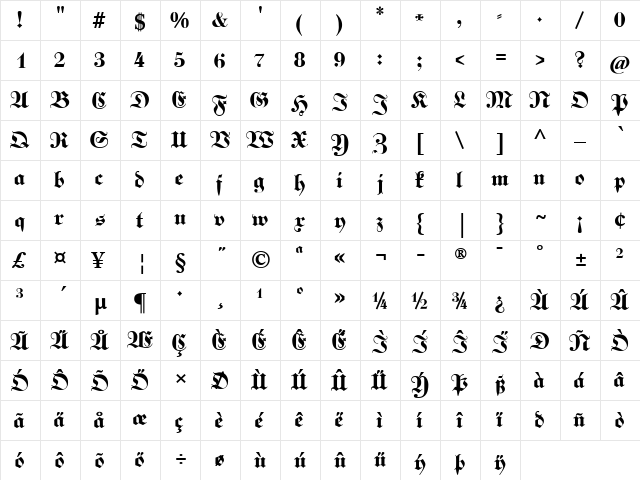
Kabinett Fraktur Bold
| Foundry | Peter Wiegel |
| Designer | Peter Wiegel nach alter Vorlage |
Design Context for Kabinett Fraktur Typeface
Kabinett Fraktur draws on the rich tradition of blackletter calligraphy, with dense, angular strokes that evoke medieval manuscripts and old-world craftsmanship. Its bold stroke weight gives it real presence on the page.
Well-suited to band logos, craft beer branding, tattoo lettering, and heritage-themed identities.
Font Pairing: Pair with a clean neutral sans-serif for body copy to let Kabinett Fraktur's character lead without overwhelming the composition.
Pro Tip: Use Kabinett Fraktur sparingly at large sizes. Even a single word set in blackletter can define the visual register of an entire design.